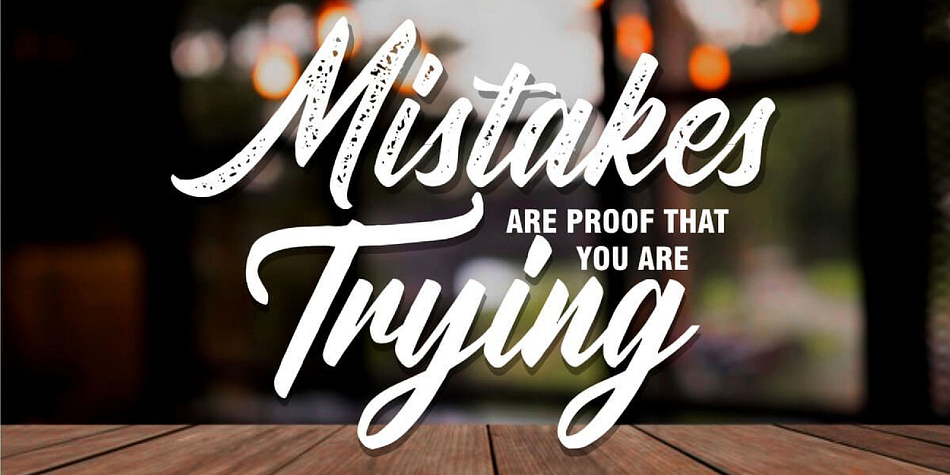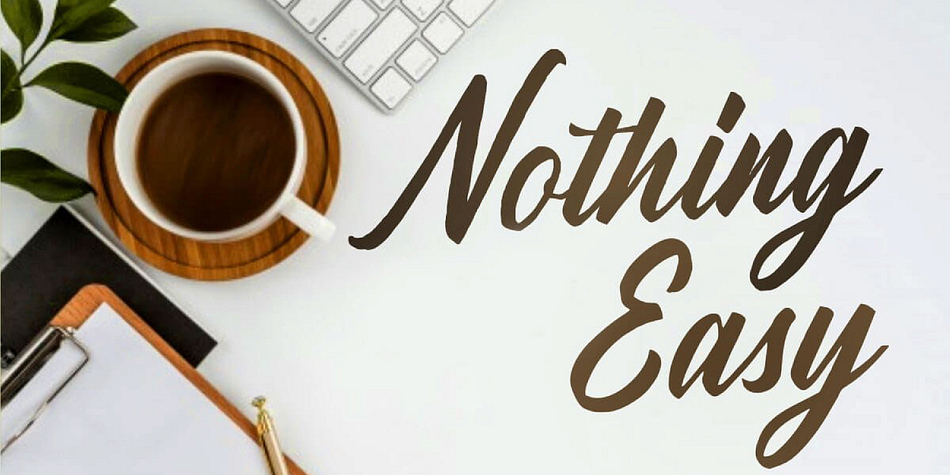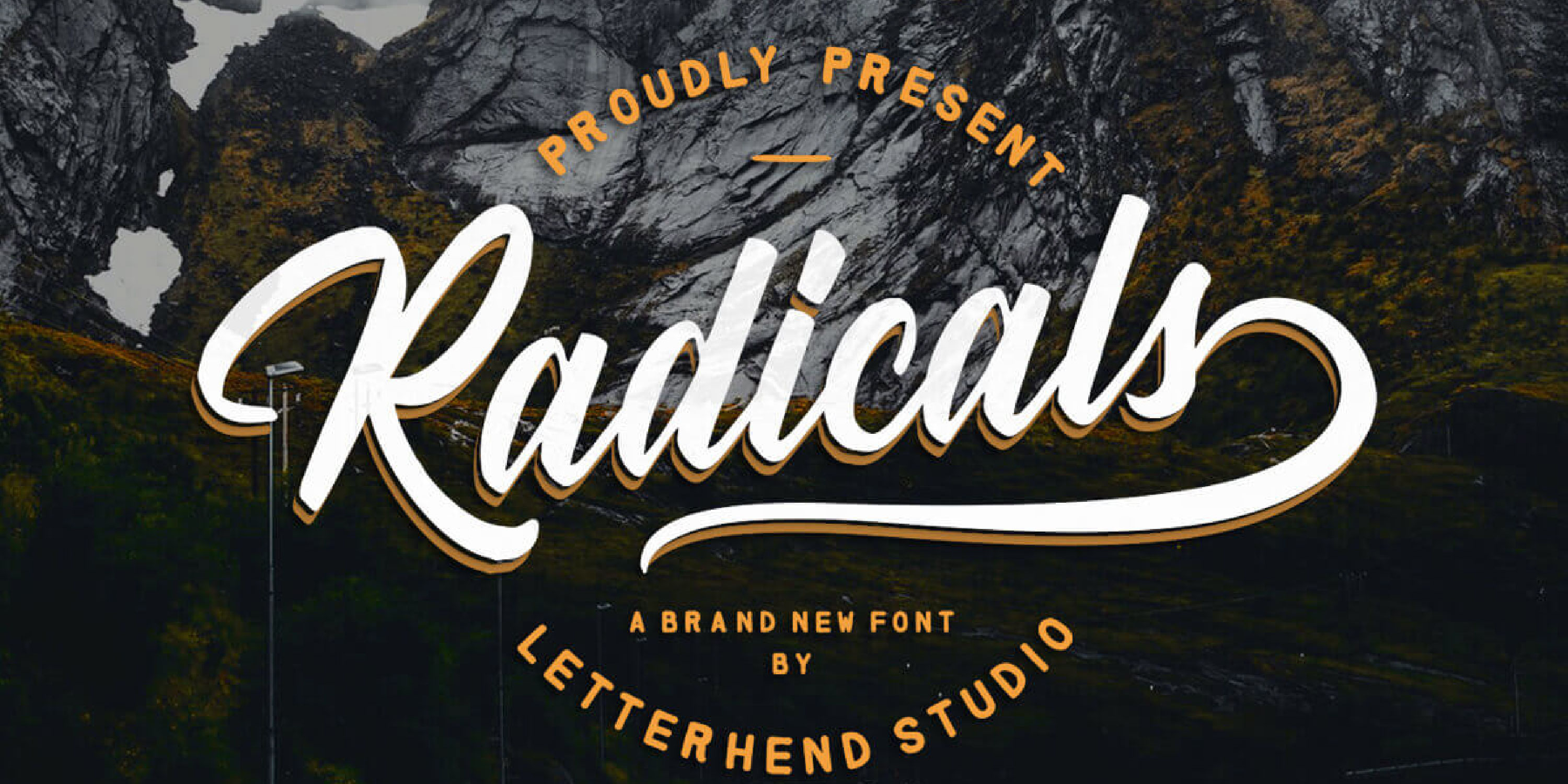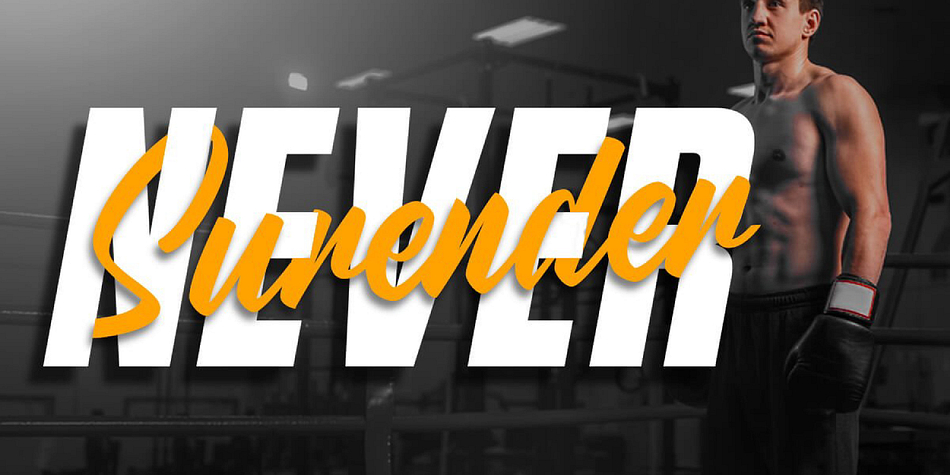
Designed by Hendry Juanda, Radicals Script is a brush script and script font family. This typeface has three styles and was published by Letterhend Studio.
Introducing, Radicals. A script typeface with vintage and rustic look! They works perfect for you who needs a typeface for headline, logotype, apparel, invitation, branding, packaging, advertising etc. This typeface is comes in uppercase, lowercase, punctuation, symbols, numerals, stylistic set alternate, ligatures, etc also support multilingual.